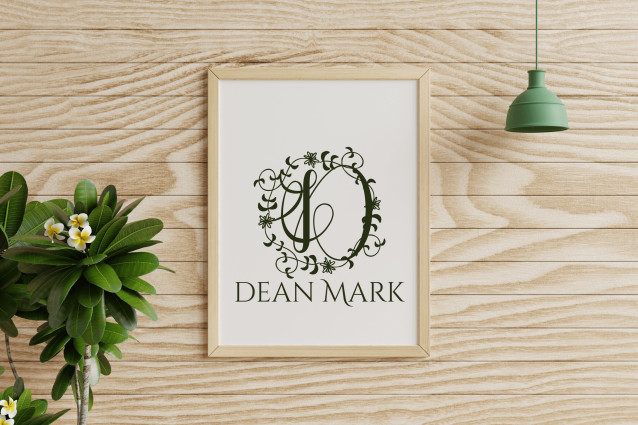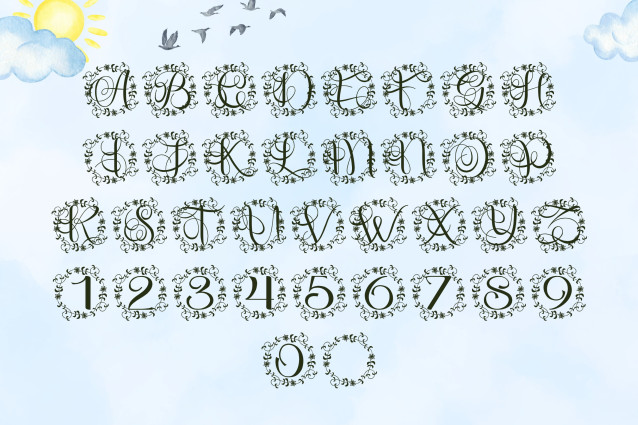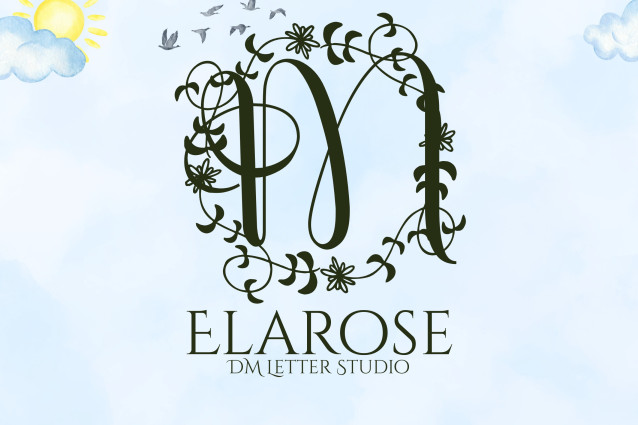
Elarose Font
Elarose Font is a refined serif monogram font that pairs timeless uppercase lettering with delicate floral embellishments inspired by rose petals and vintage blooms. Designed for elegant occasions and branding with a romantic flair, it’s perfect for weddings, Cricut personalization, luxury packaging, and feminine logo designs.